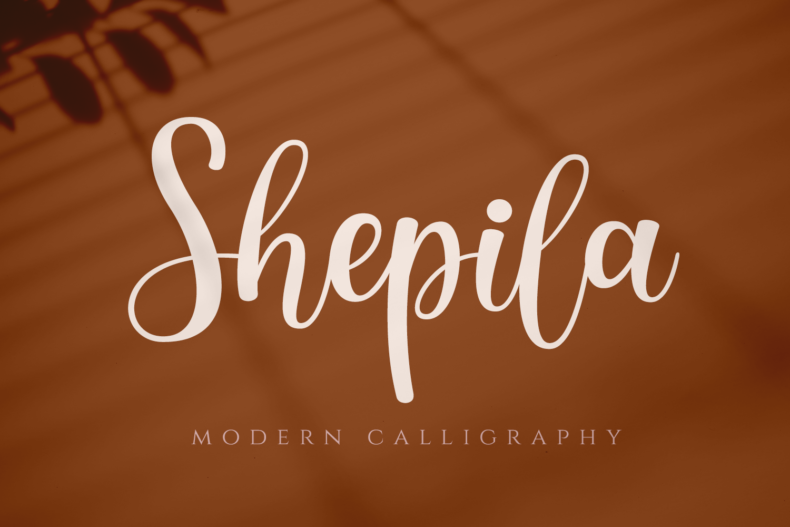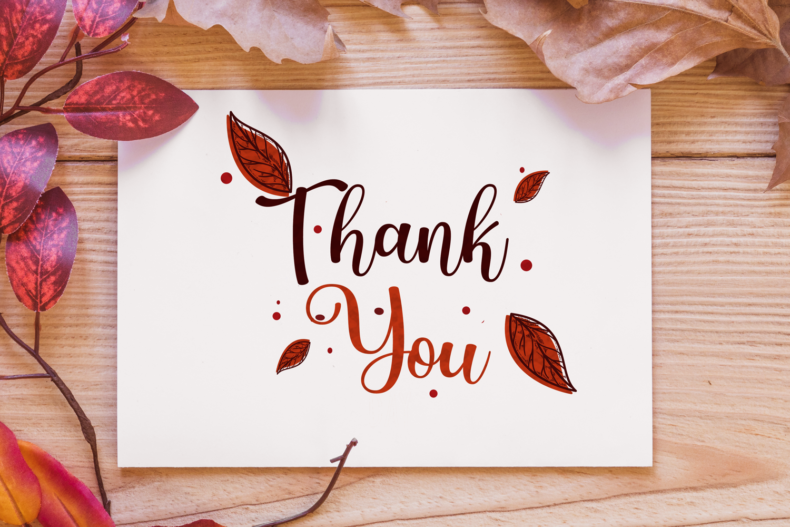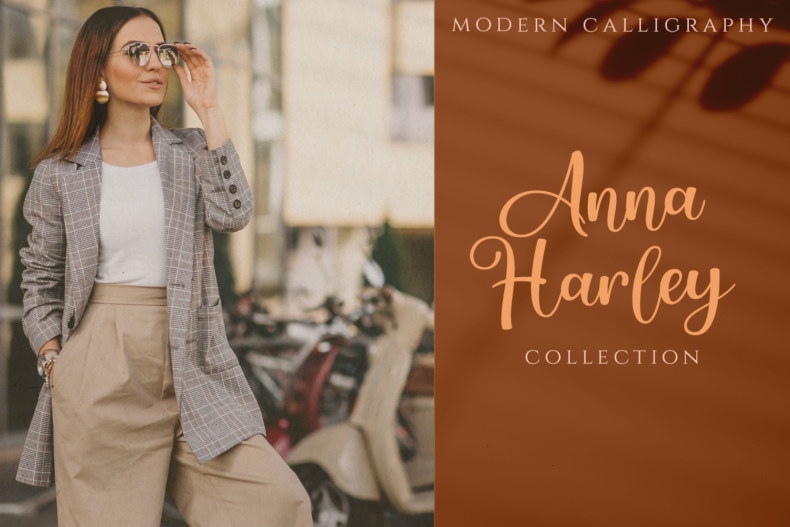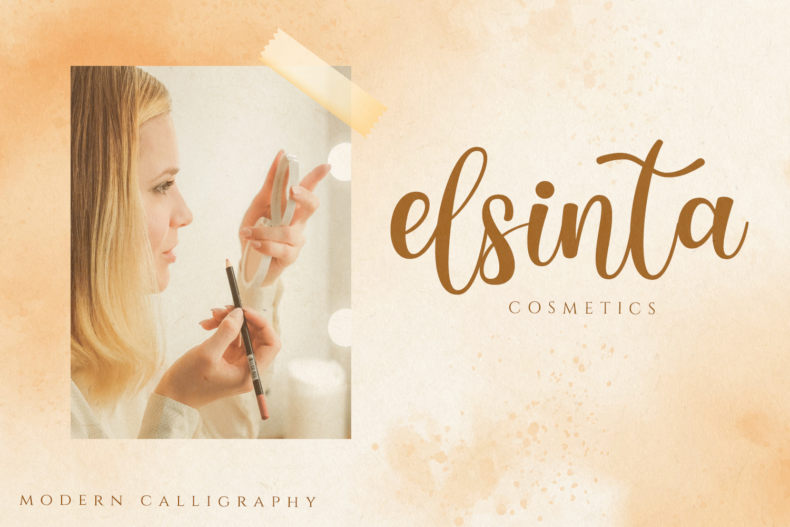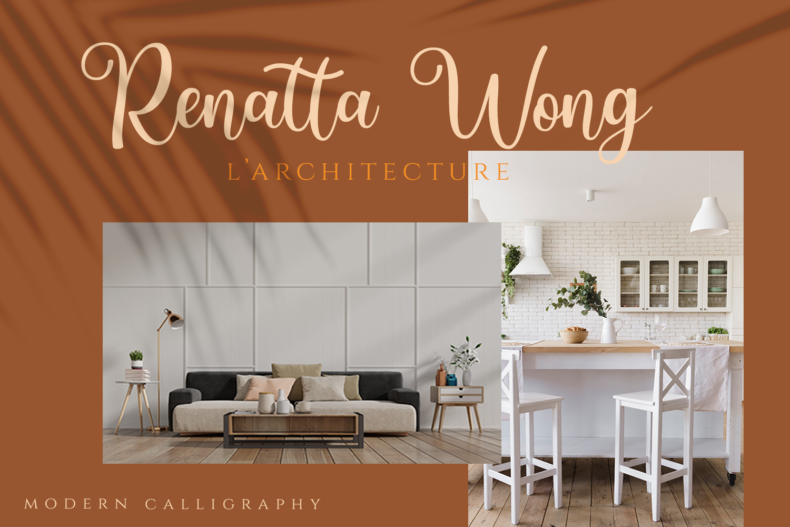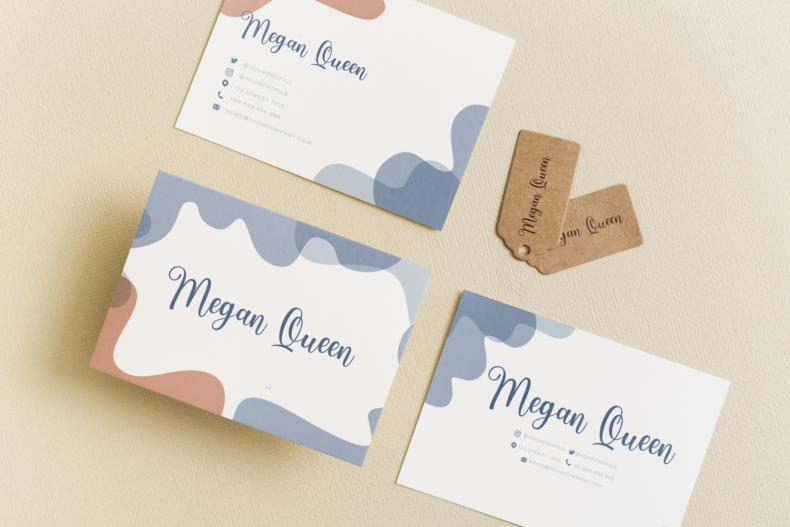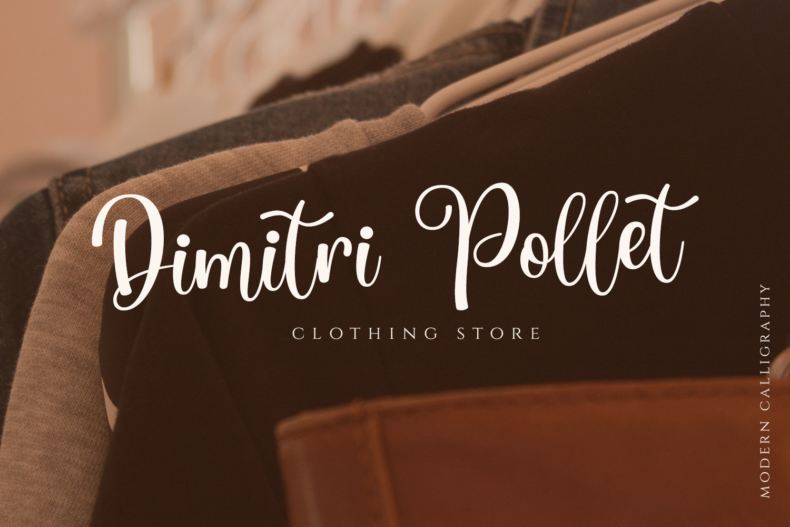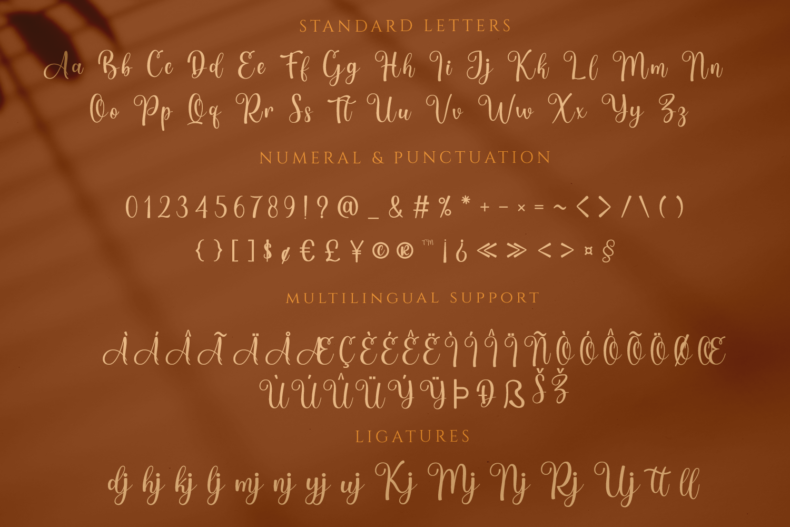
Shepila, Pretty Script Font
Shepila is a modern calligraphy script font with an elegant character. Consider it for wedding stationery, boutique branding, and fashion-focused headings.
Shepila offers a calligraphic direction for a name, invitation heading, or short brand message. Use it where the lettering should feel decorative and personal, such as a boutique identity or the main wording on a wedding card.
Pair the script with simple supporting text to create a clear hierarchy. Testing the actual names or phrase in the preview will help you judge how the letterforms work together in your composition.